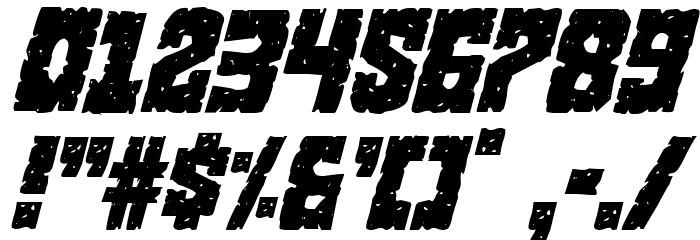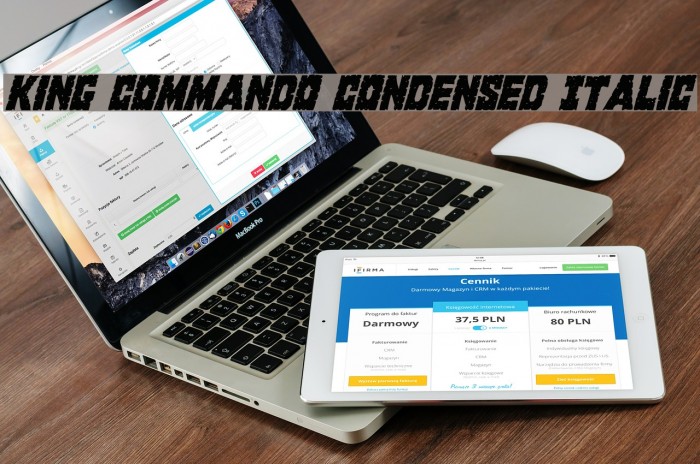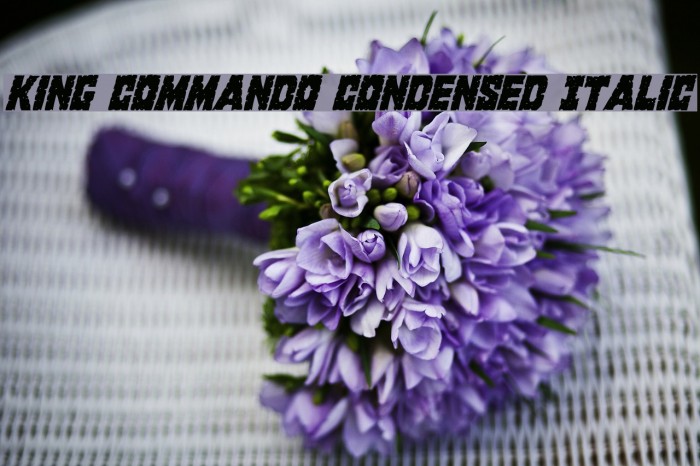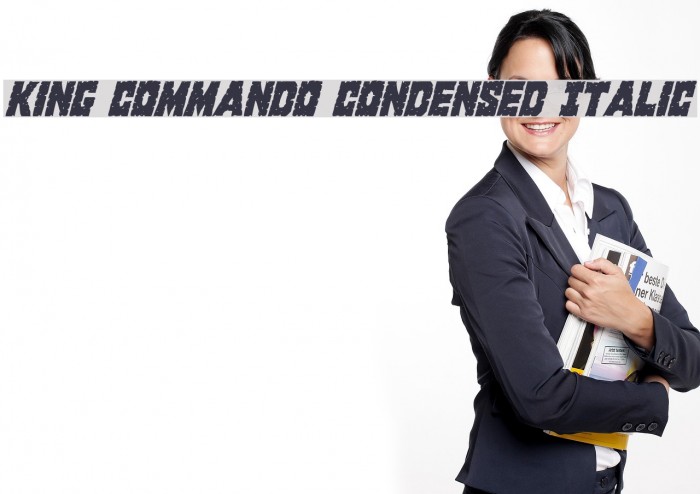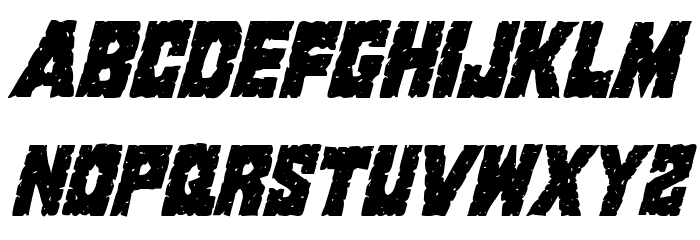
King Commando Condensed Italic Font
King Commando Condensed Italic Description
This font features a bold and rugged design with a distressed texture that gives it a gritty, military-inspired appearance. The characters are condensed and italicized, adding a dynamic and aggressive feel. The uppercase letters are prominent and impactful, while the lowercase letters maintain the same boldness. Numbers and special characters follow the same rugged style, making the font suitable for attention-grabbing designs. The overall look is both powerful and edgy, ideal for projects that require a strong visual statement.
A bold, distressed, and condensed italic font with a rugged military style from Distorted Eroded fonts.
- Proposed Projects: Ideal for military-themed posters, action movie titles, video game covers, and branding that requires a strong, bold presence.